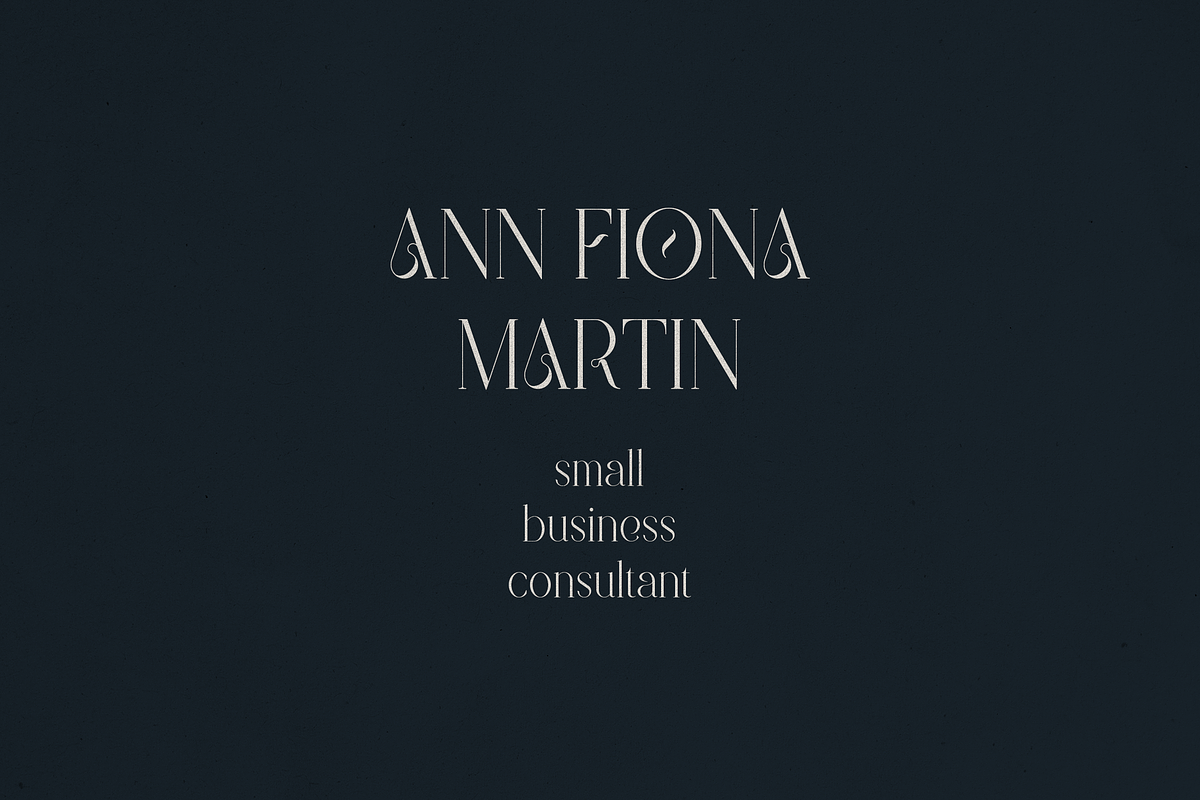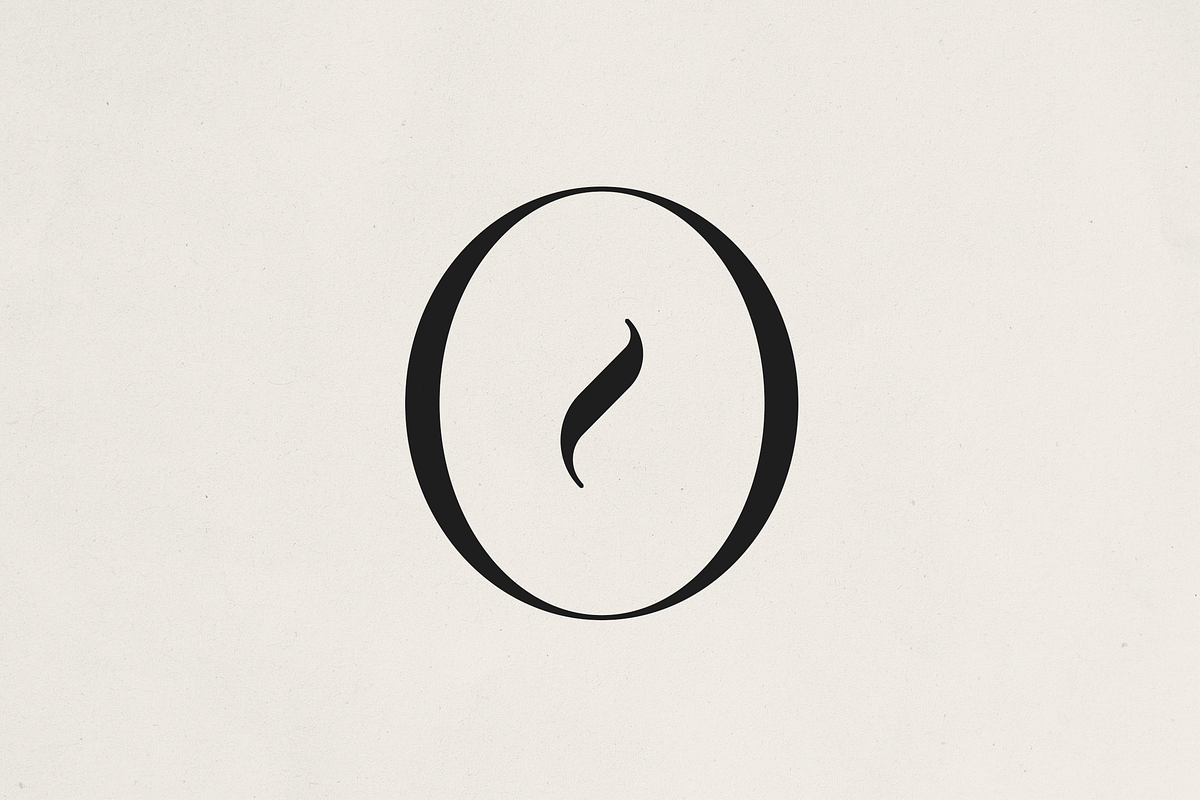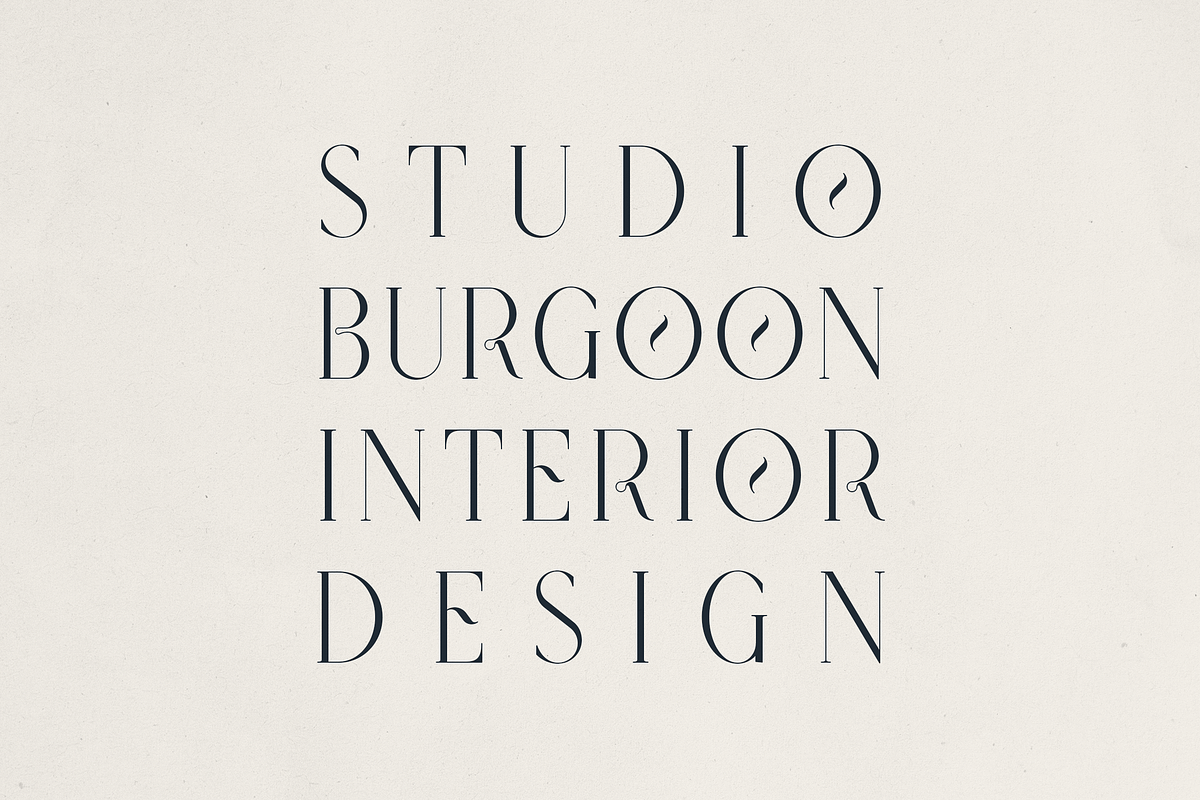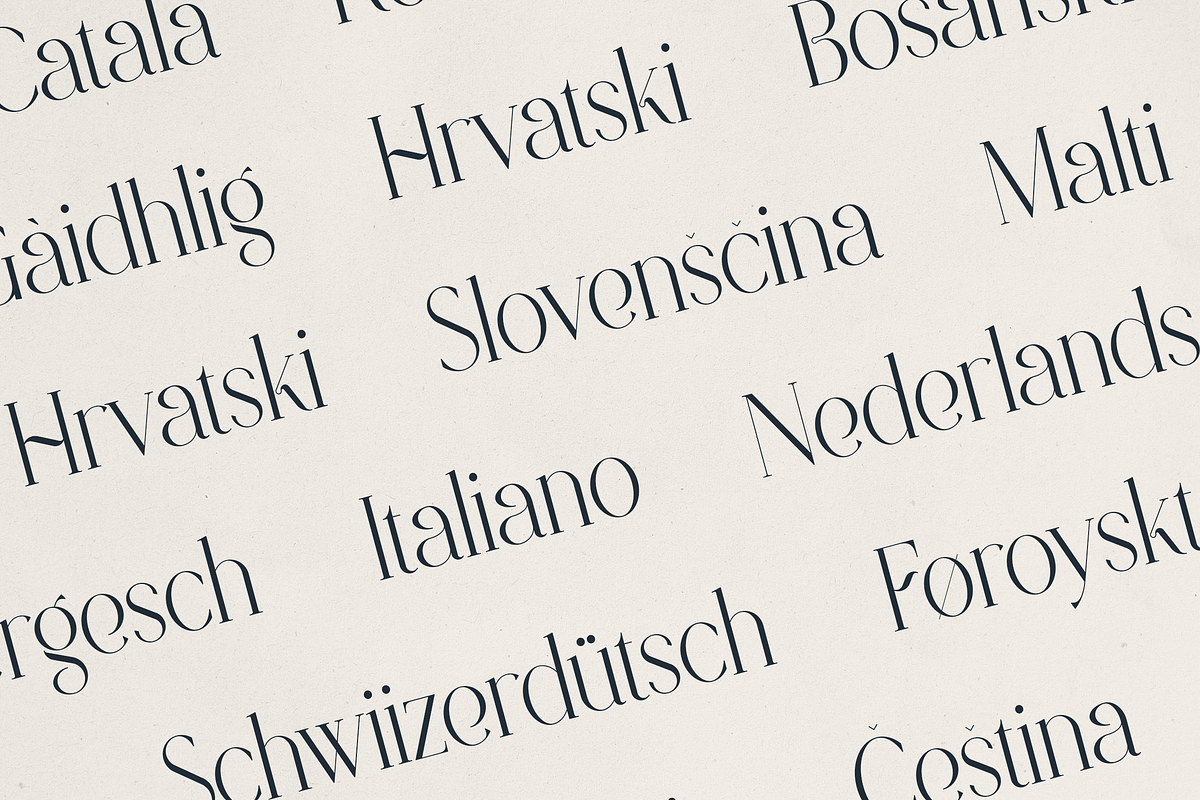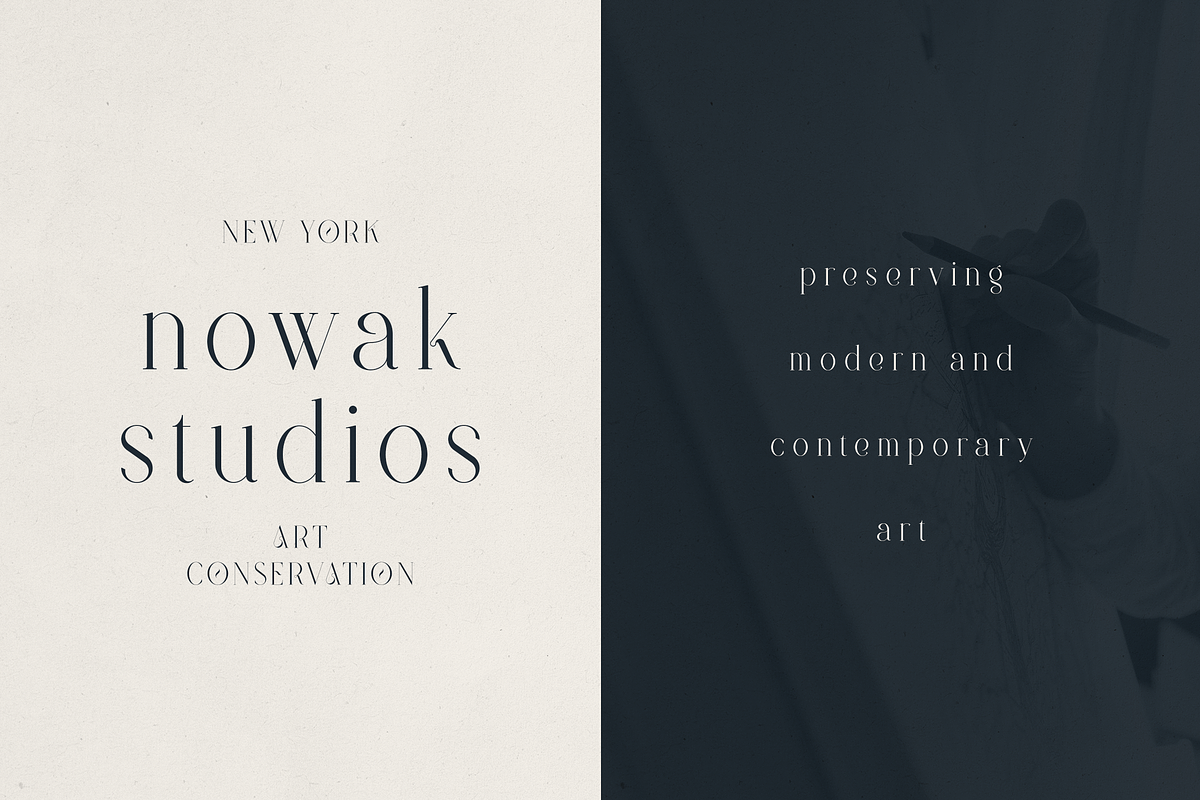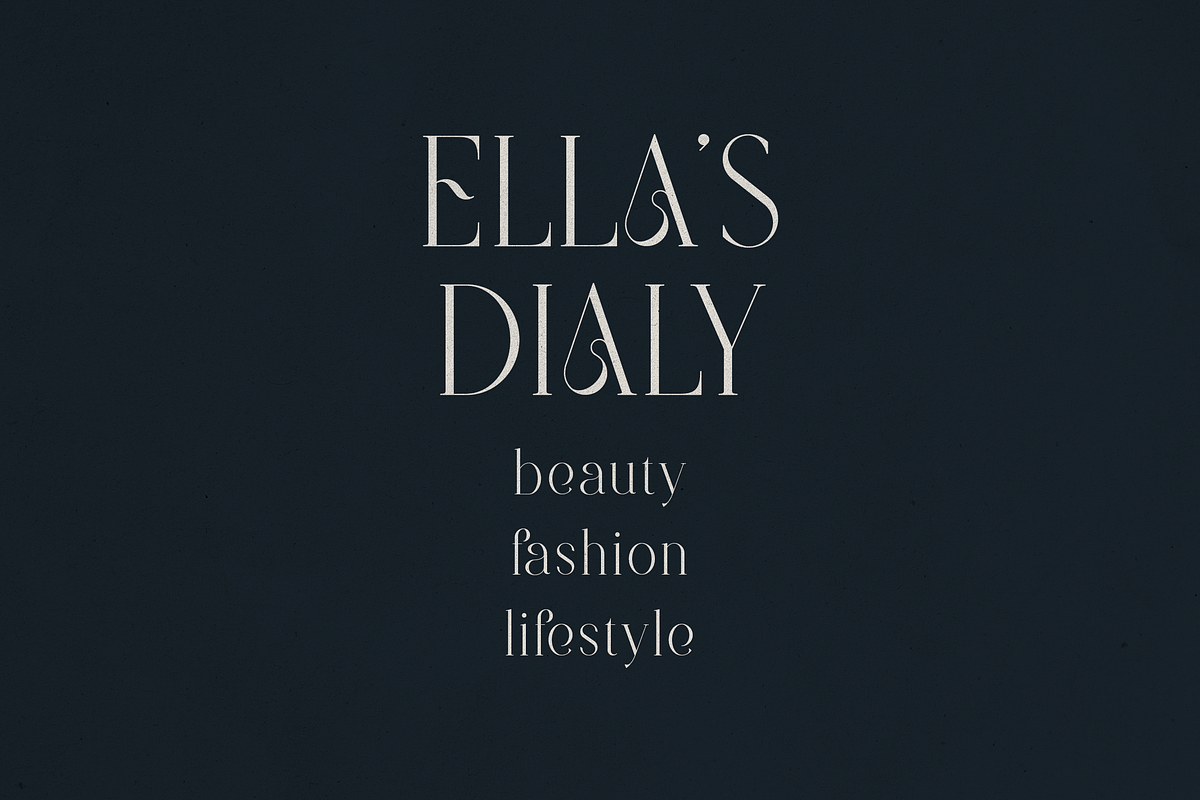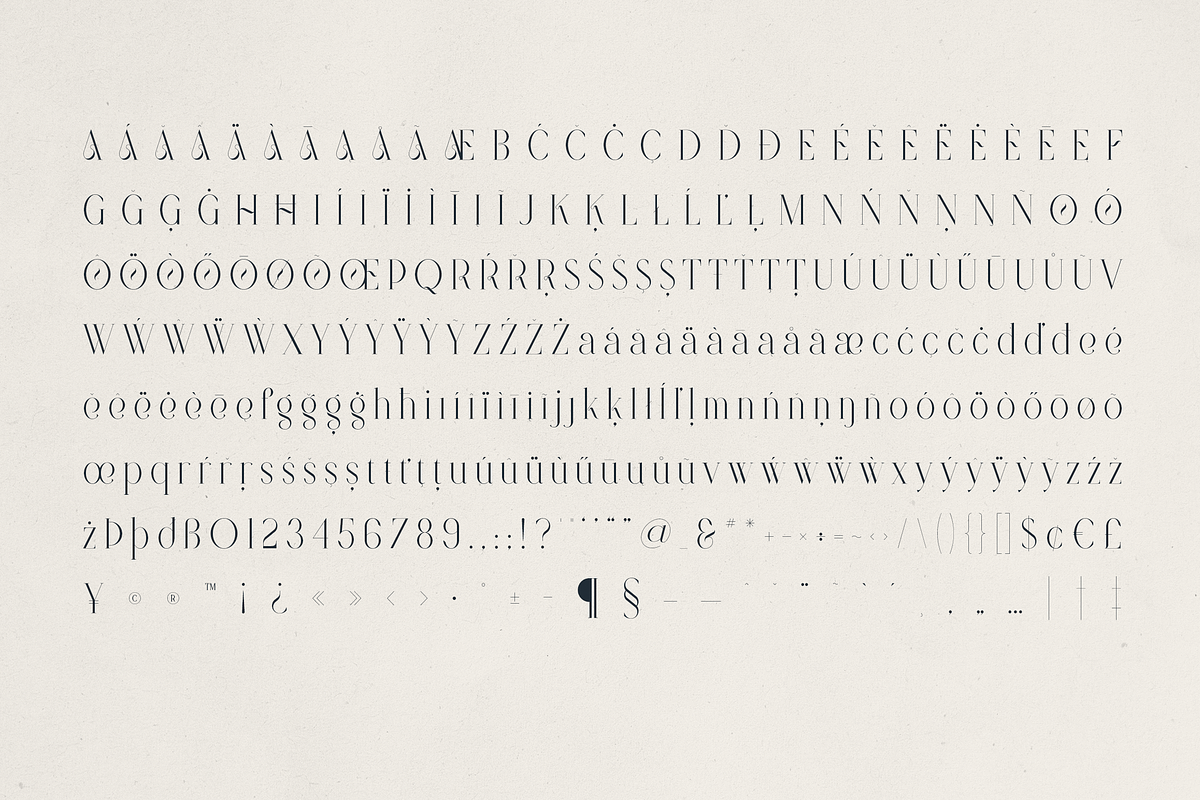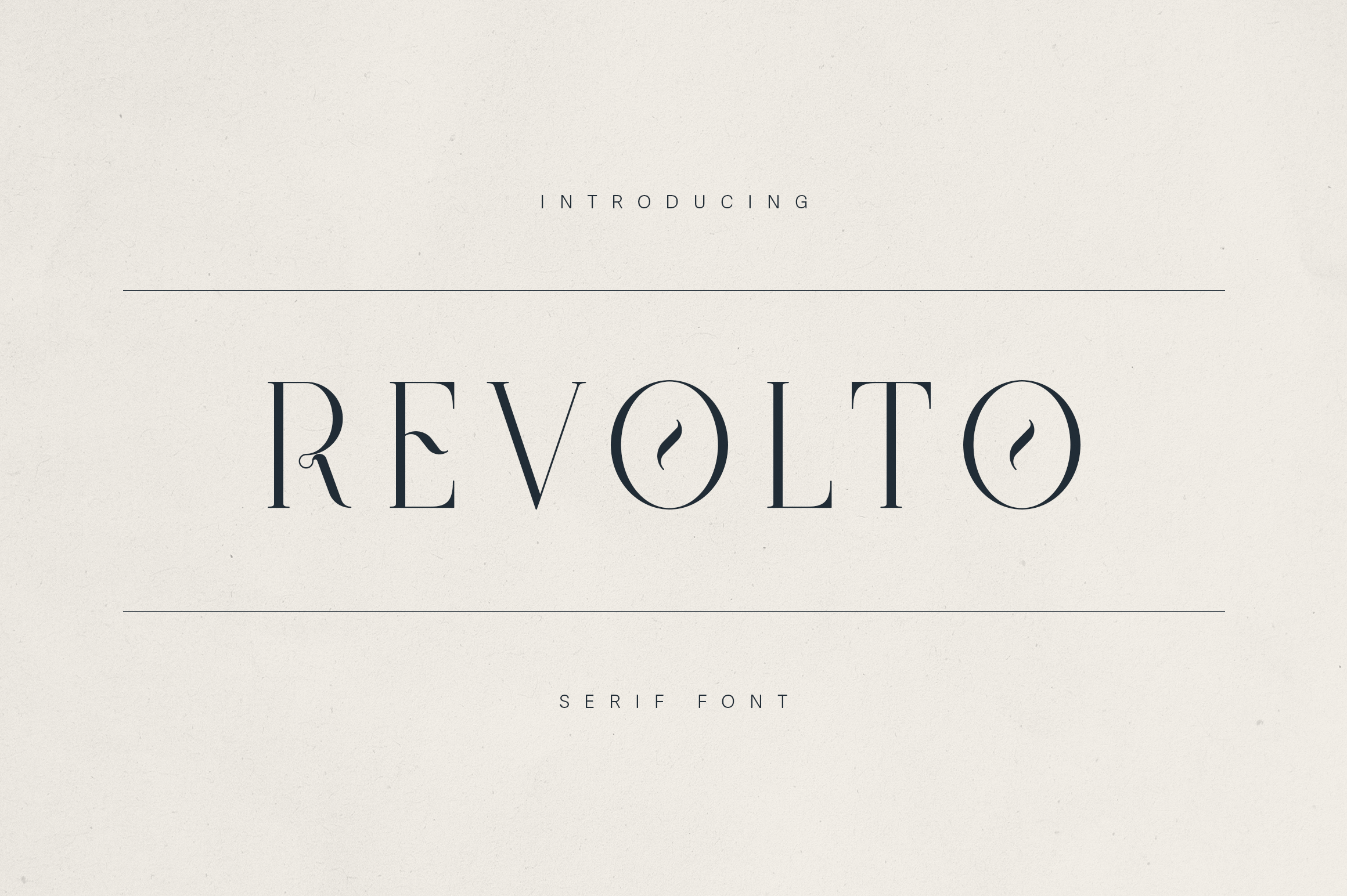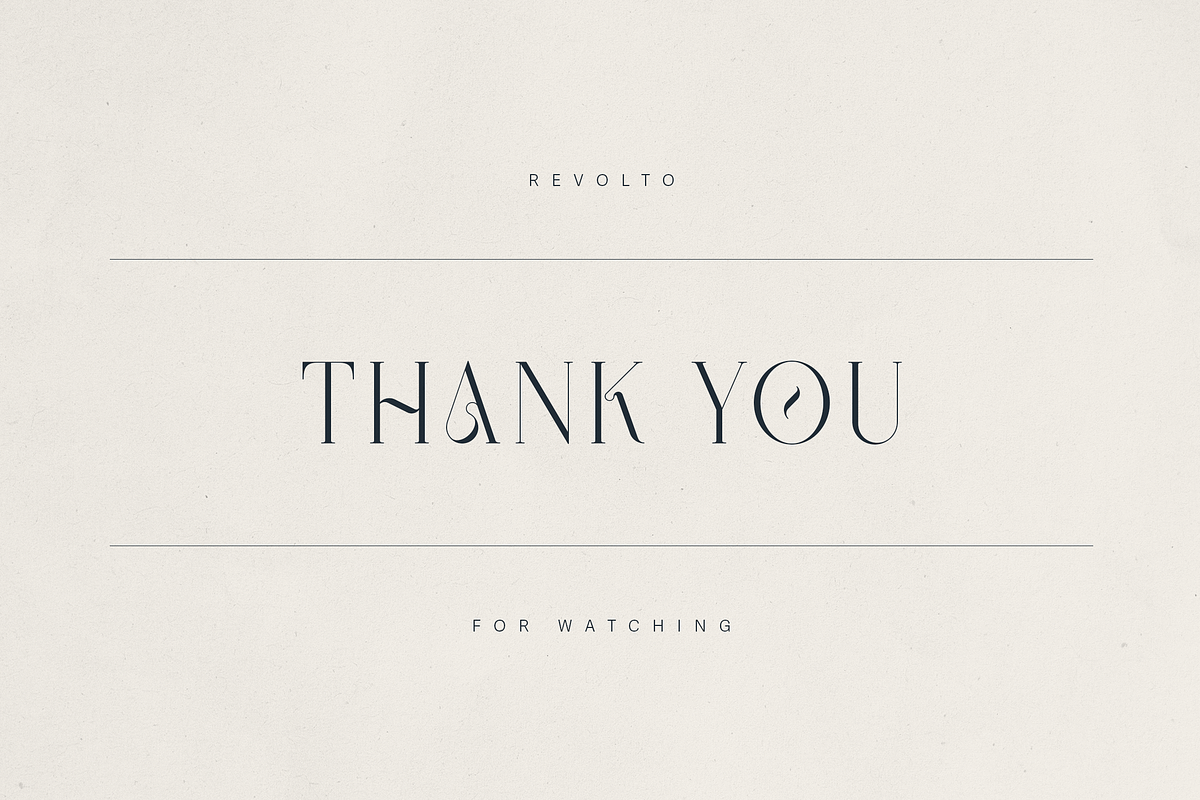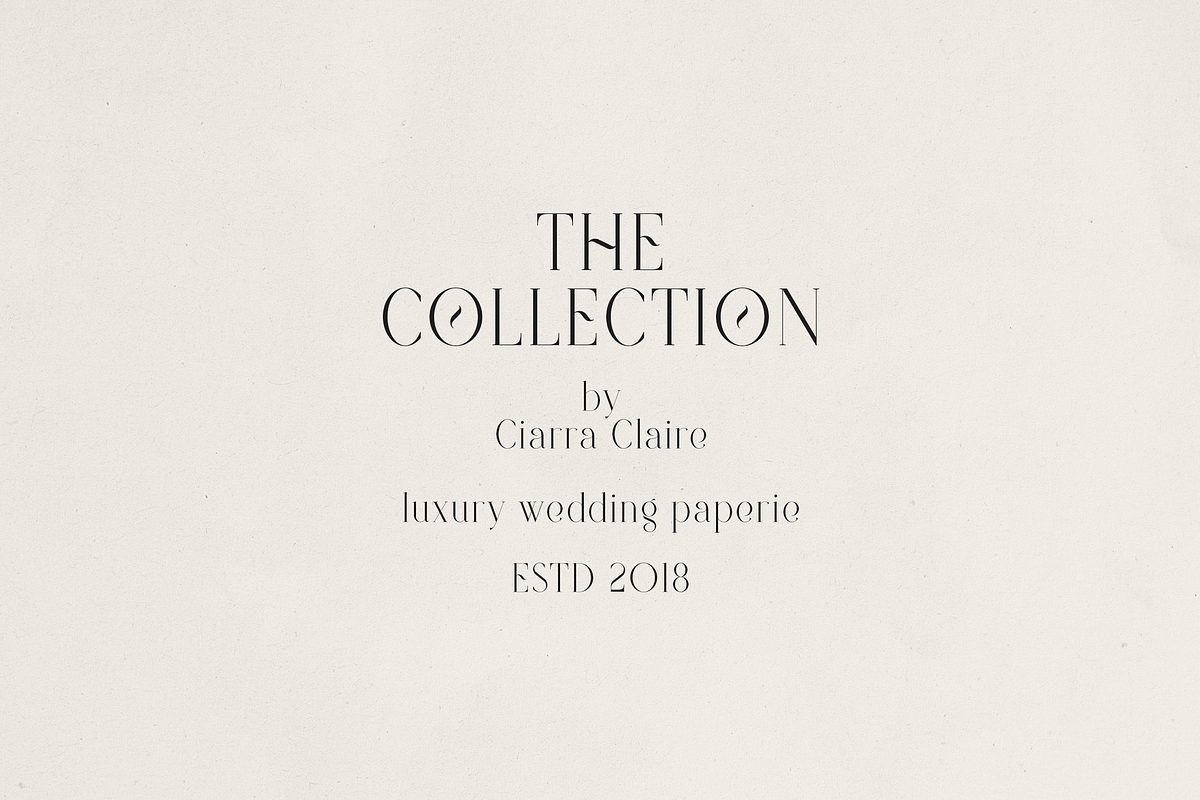
Revolto – Elegant Display Serif Font
Revolto – Elegant Display Serif Font with Artistic Flair
Revolto is a refined, modern display serif font that seamlessly blends timeless elegance with creative innovation. Designed for premium branding, editorial design, and high-end creative projects, Revolto stands out with its delicate contrast and graceful curves.
✦ Key Features:
- Elegant serif design with high contrast strokes
- Stylish signature glyphs
- Support for 87+ languages with full diacritic coverage
- Carefully crafted for branding, packaging, editorial headlines, wedding stationery, and creative studios
✦ Perfect For:
- Luxury branding & logos
- Editorial & fashion magazines
- Art galleries & interior design studios
- Beauty, lifestyle & wedding creatives
- High-end packaging & social media graphics
✦ Why Choose Revolto?
With its artistic balance of classic serif elegance and unexpected creative twists, Revolto adds sophistication and originality to every design. Whether you're crafting an identity for a boutique brand or designing stylish editorial layouts, Revolto offers the versatility and flair your work deserves.